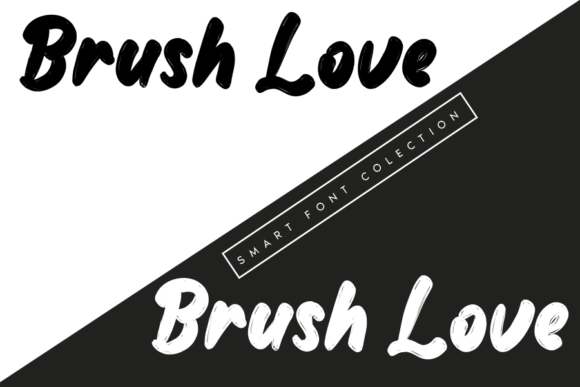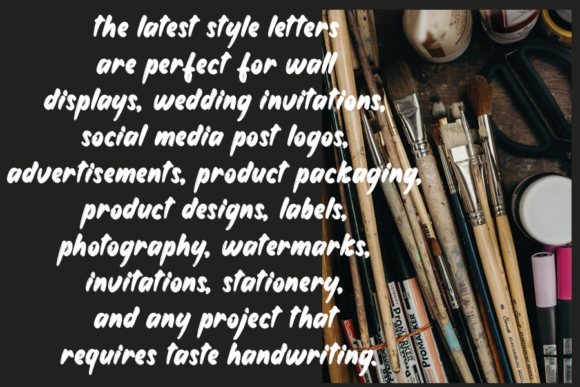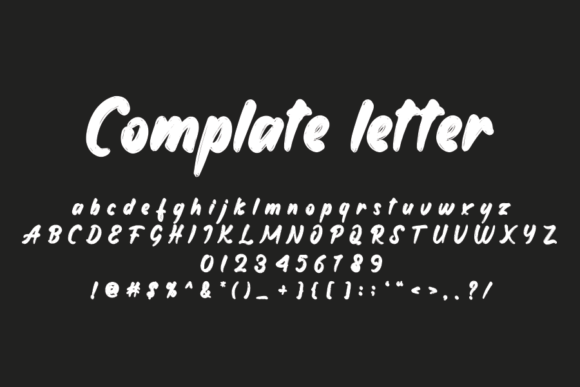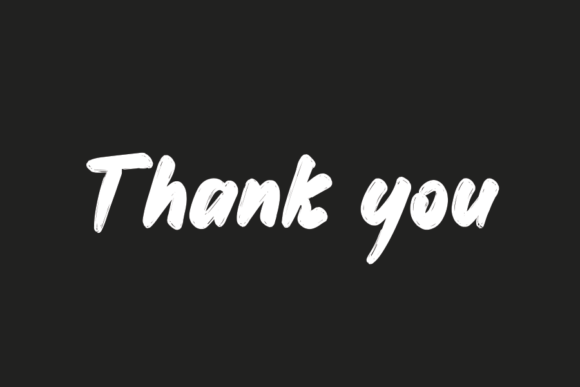
Introduction to Brush Love Font
Brush Love looks bold, yet sophisticated and features chunky and extended characters that will look particularly adept when used in logos, branding, packaging design, and much more.
This masterfully designed handwritten font is a true must-have .